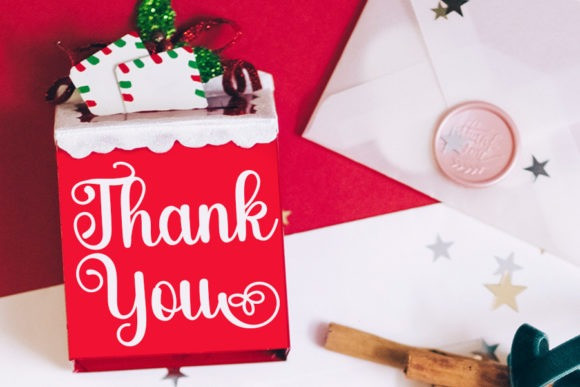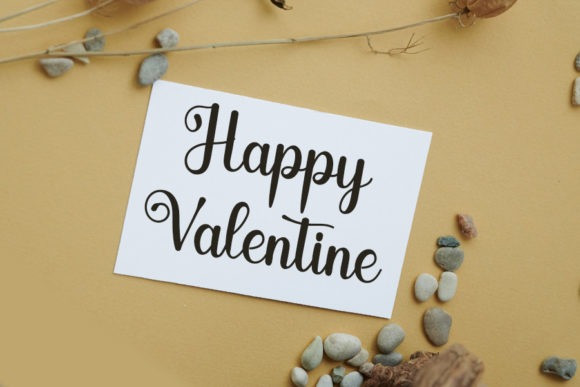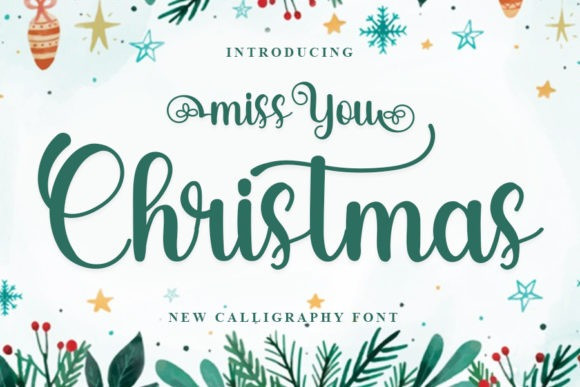
Miss You Christmas Font
Miss you Christmas Script Font is a beautiful and charming handwritten font. It is suitable for various business needs, including shirt designs, logos, banners, and others. Apart from that, this font is easy to use on Windows or Mac OS devices. The beauty of this font will make your business look beautiful in the market. This font is PUA encoded which means you can access all of the glyphs and swashes with ease!